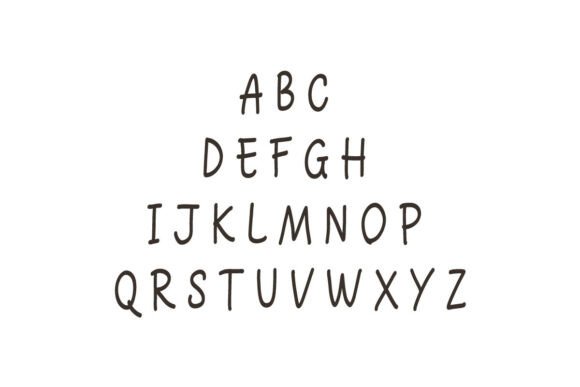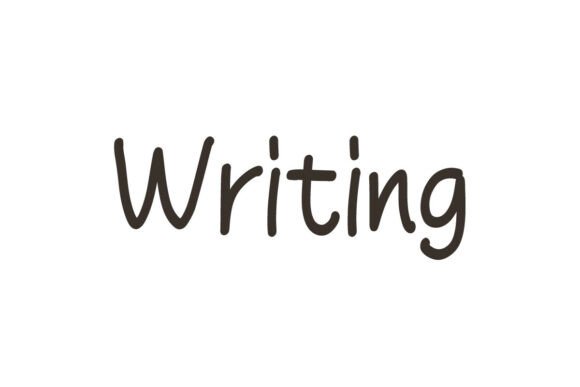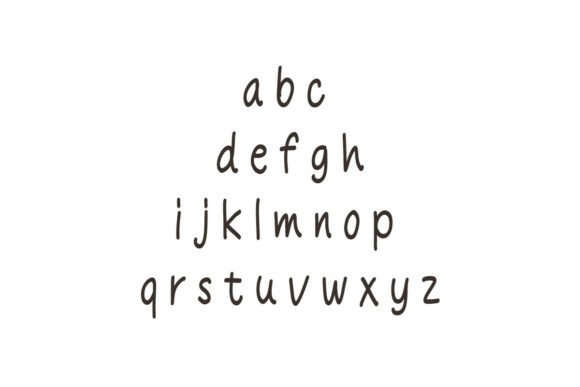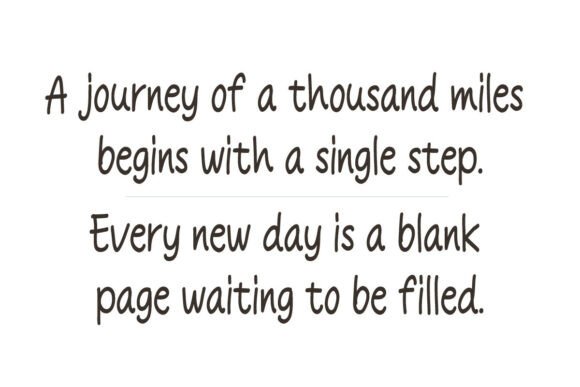
Have you ever stared at a blank page, eager to bring your creative vision to life, only to be held back by the perfect font? You know, that elusive combination of style, personality, and readability that makes your work truly pop?
Enter the Buangam Font, a playful and friendly handwritten font that’s sure to add a touch of fun to any project. With its cute and rounded letterforms, this font is perfect for a wide range of creative works, from children’s books and greeting cards to branding and social media graphics.
For designers, the Buangam Font is a valuable asset that can elevate their work and make it stand out from the crowd. Its unique character shapes and readability make it a must-have for anyone looking to add a personal touch to their designs.
Buangam Font Key Features
- Unique Characteristics: Buangam Font features a unique blend of modern and traditional design elements, making it suitable for various design applications.
- Font Weight: Buangam Font is available in multiple weights, including light, regular, bold, and black, allowing for flexible typography.
Review of Buangam Font
Overall, I have mixed feelings about the Buangam Font. While it has some great qualities, it also falls short in a few areas.
- The font has a unique and modern aesthetic that would be perfect for creative and tech-related projects.
- It’s highly customizable, allowing you to adjust the weights, styles, and even the spacing between letters.
- The font family is quite extensive, with multiple styles and weights to choose from.
Limitsations ⚠️
- The font can be quite difficult to read in smaller sizes, which may be a problem for body text.
- It lacks a clear distinction between different weights, which can make it harder to choose the right font for a particular project.
- The font may not be suitable for projects that require a more classic or traditional look.
The Buangam Font is a solid choice for designers who want a modern and customizable font for their projects. While it has some limitations, its unique aesthetic and flexibility make it a great option for creative and tech-related projects. However, it may not be the best choice for projects that require a more classic or traditional look.
Tips for Getting the Most Out of Buangam Font
Use Buangam Font for creating eye-catching headings and titles.
Pair Buangam Font with other fonts to create a unique and stylish design.
Buangam Font is perfect for:
Creative branding and marketing materials.
Designing menus and food packaging.
Creating social media graphics and ads.